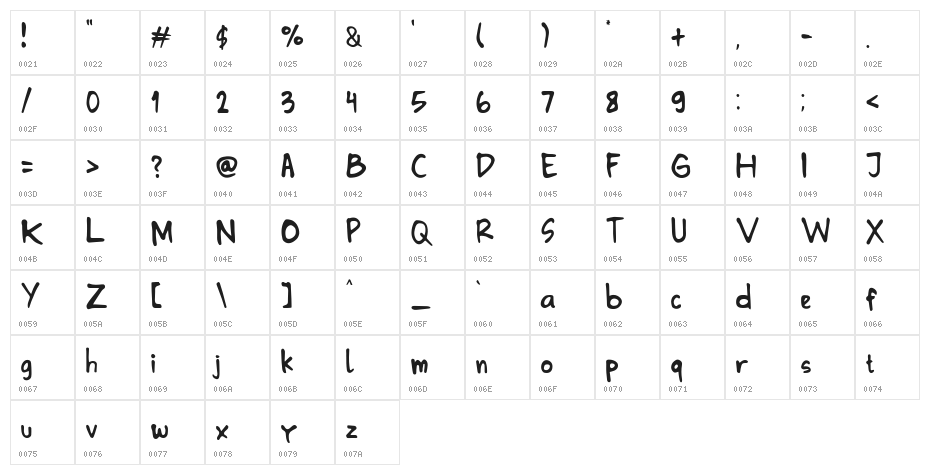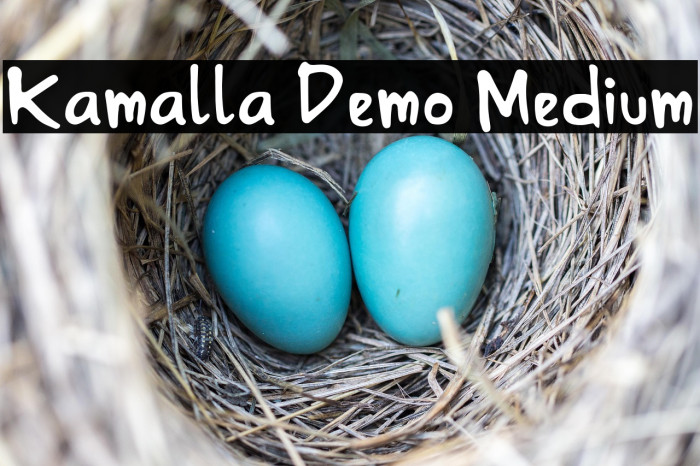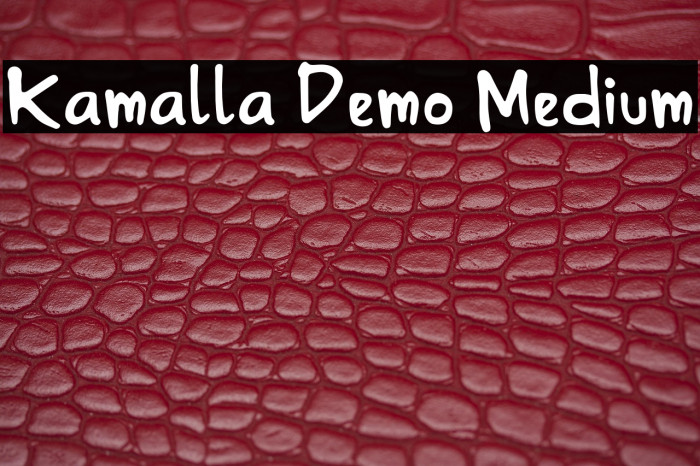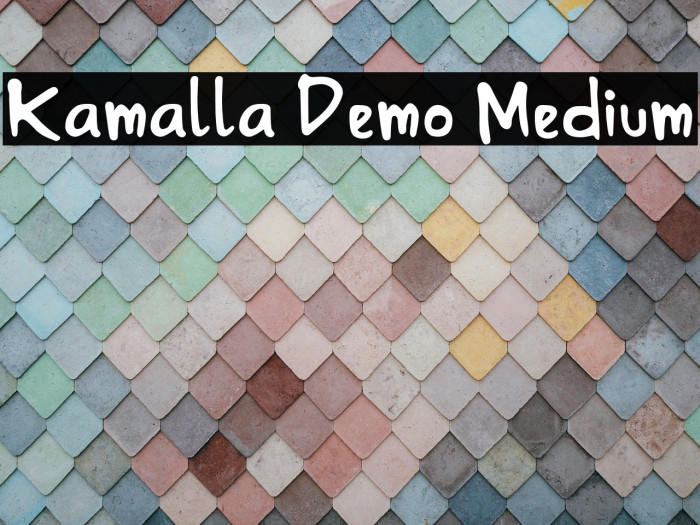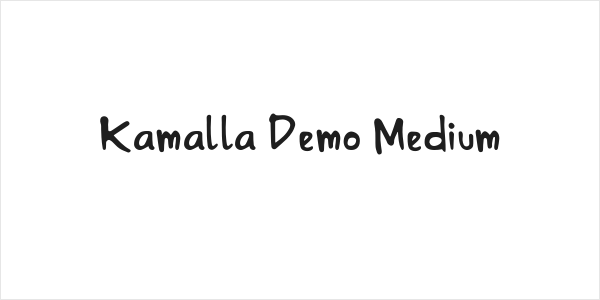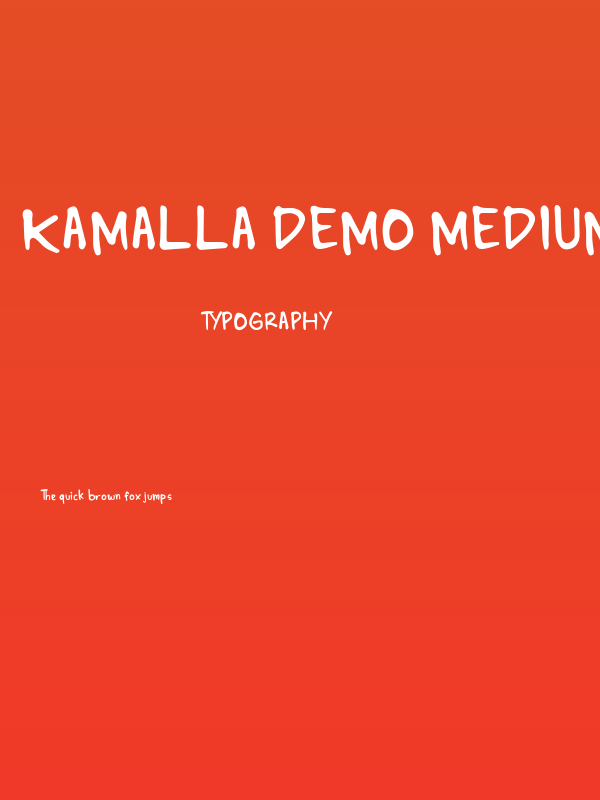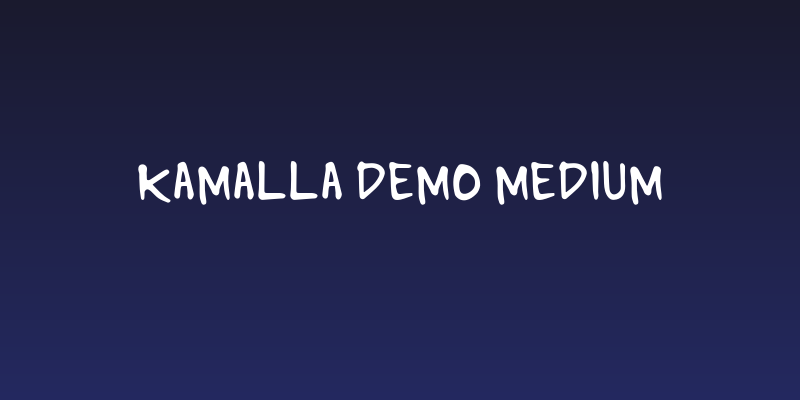
Kamalla Demo Medium Font
Kamalla Demo Medium Description
This font features a playful and informal handwritten style, characterized by its bold and slightly irregular strokes. The letters have a casual, friendly appearance, making them suitable for designs that require a personal touch. The uppercase and lowercase letters maintain a consistent style, with rounded edges and a slightly uneven baseline that adds to the hand-drawn feel. The numerals and special characters follow the same aesthetic, ensuring a cohesive look across all elements.
| Use Case | Logos, Headlines, Informal Text |
| Proposed Projects | Ideal for children's books, greeting cards, casual branding, and playful social media graphics. |